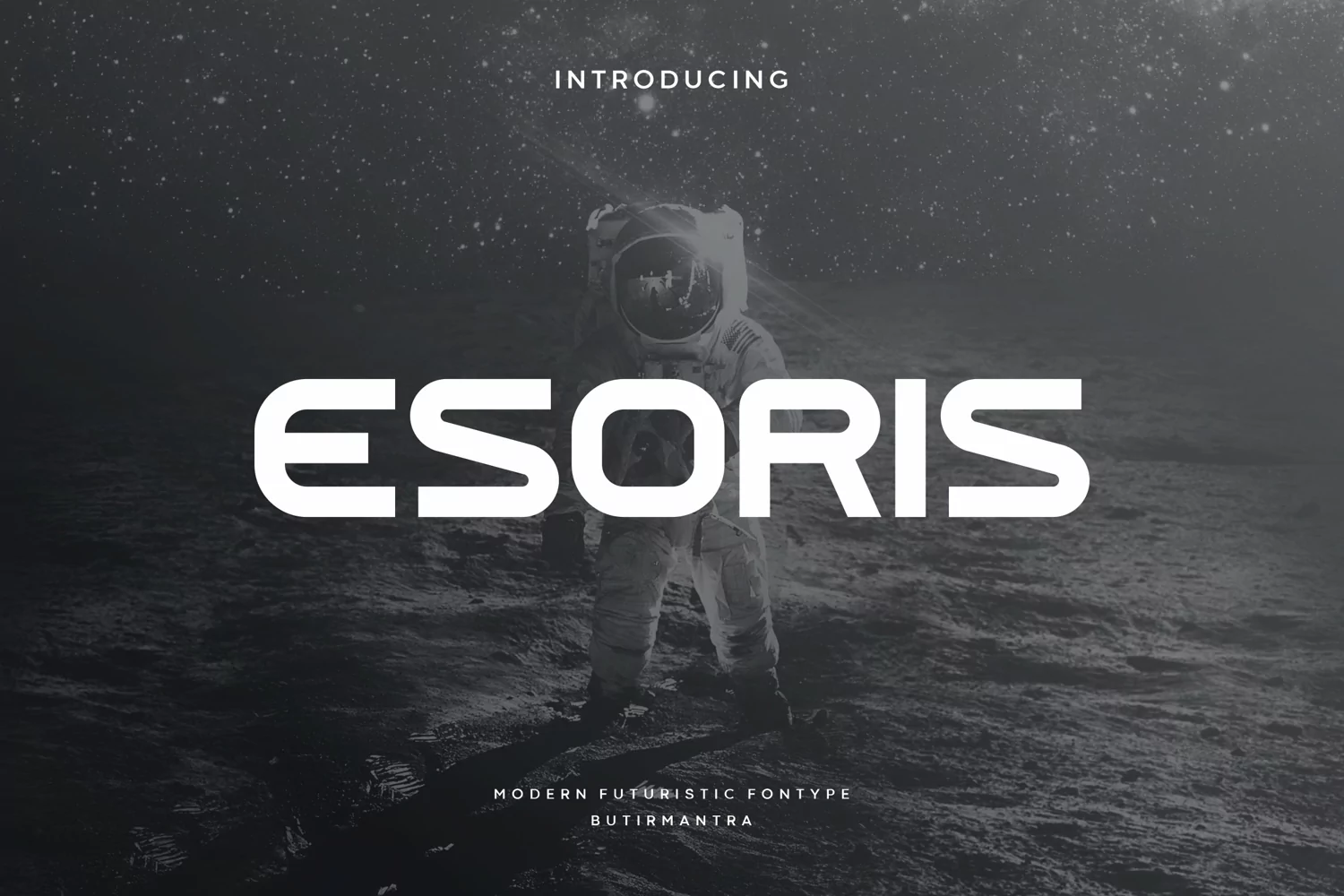
Created By butirmantra
Esoris
Esoris is an all-caps display font designed by creative, it also features some gentle curves that make it feel softer and friendlier. This font would be ideal for writing web designs, business cards, or pretty much anything else that requires a unique touch.